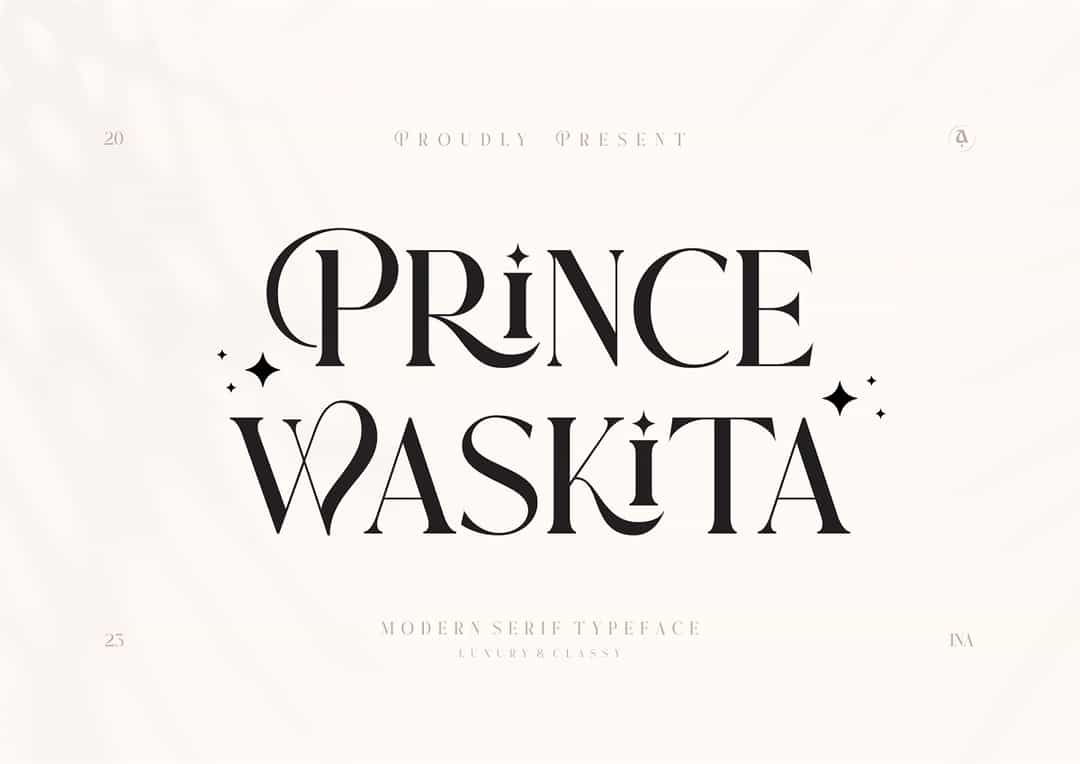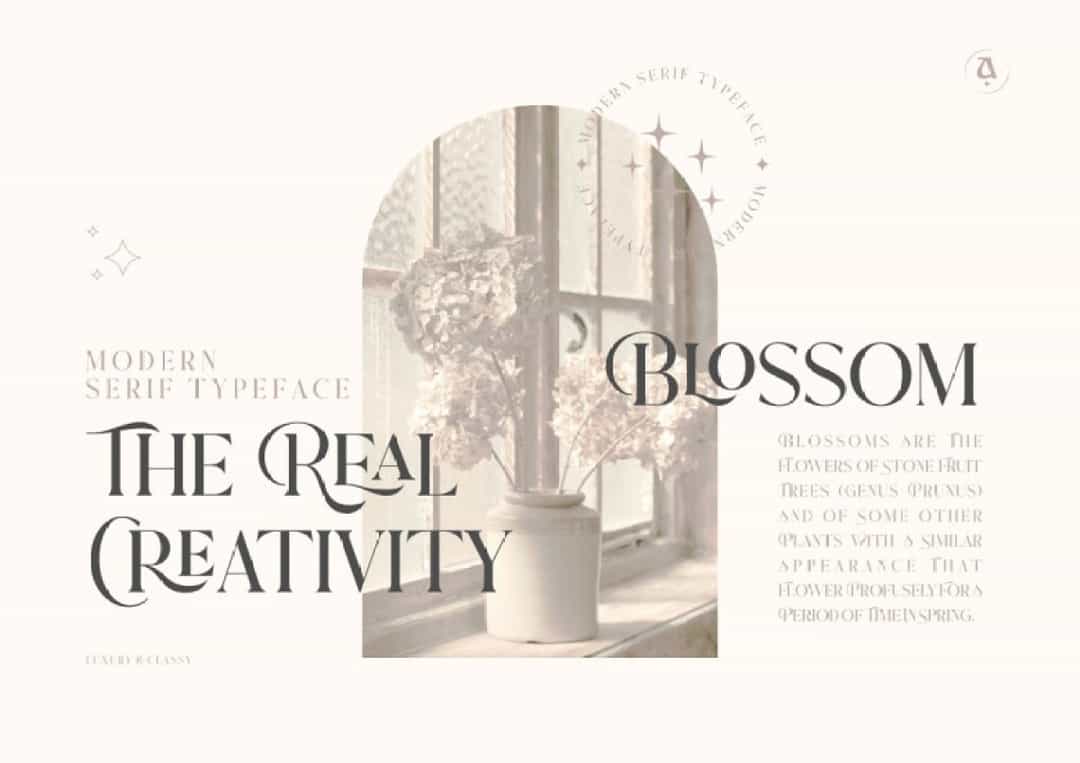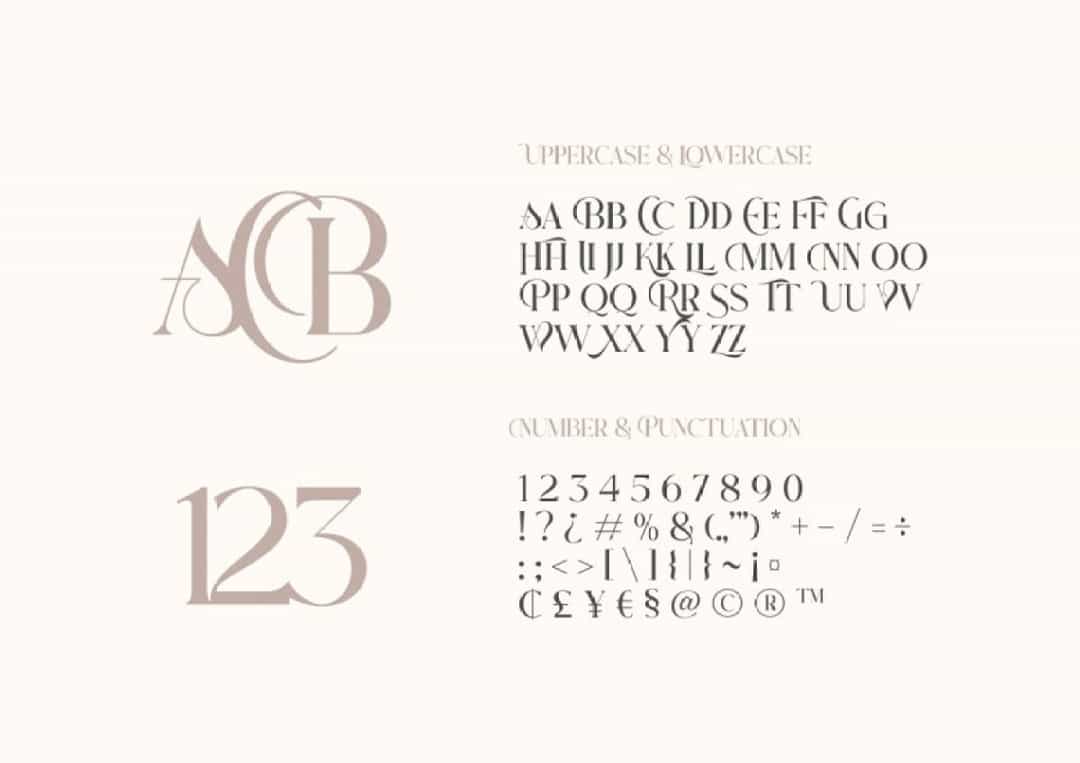
Prince Waskitais an elegant display serif font with over 270 characters, including both lowercase and uppercase letters as well as multilingual alternative characters and the most widely used other characters. Perfect for logos, social media posts, packaging designs and packaging projects among many other projects, Waskita can help make you shine brightly!